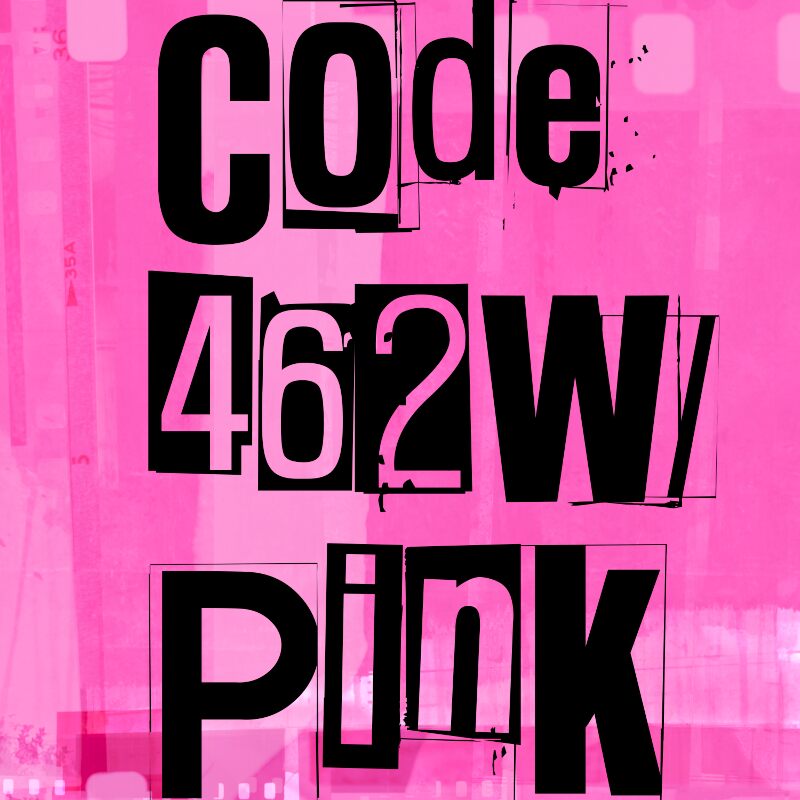
Code 462W/Pink font by Juha Korhonen draws inspiration from the irregular lettering found in old newspaper clippings. It combines the rough grunge aesthetic of those vintage prints with a contemporary twist that’s evident in the rough irregular letter alignments and extreme distressed texture. These characteristics grant it a chaotic feel, making the font suited for application in edgy design contexts and alternative media. The free font is perfect for distinctive and unified typography designs as it shines when used centered around its unique style.
Code 462W/Pink font would look great in posters, flyers, banners, quotes, invitations, magazines, book titles, packaging, and even branding.